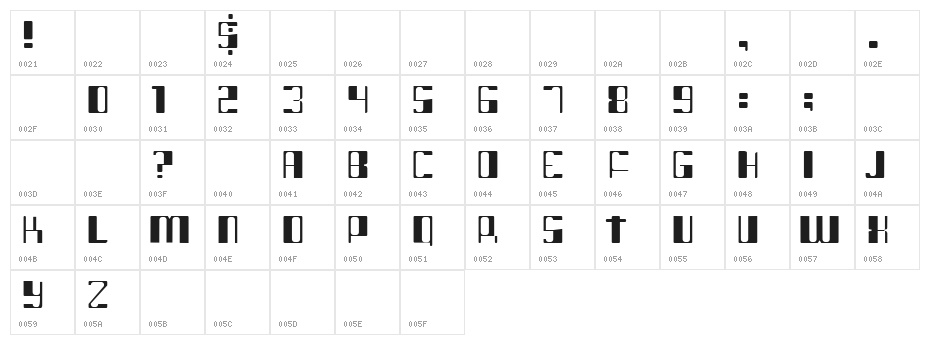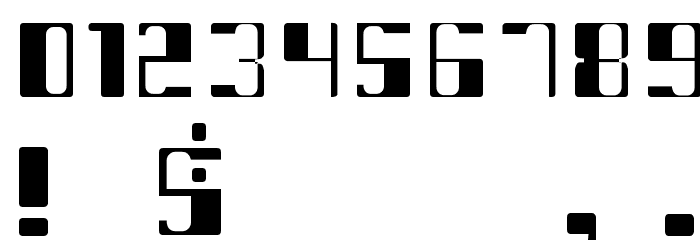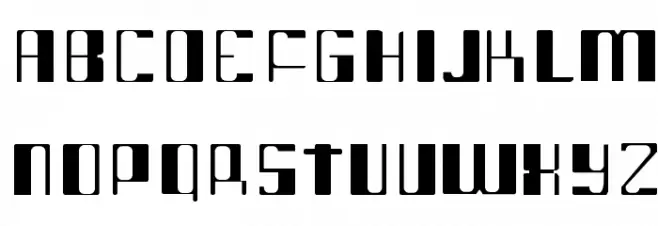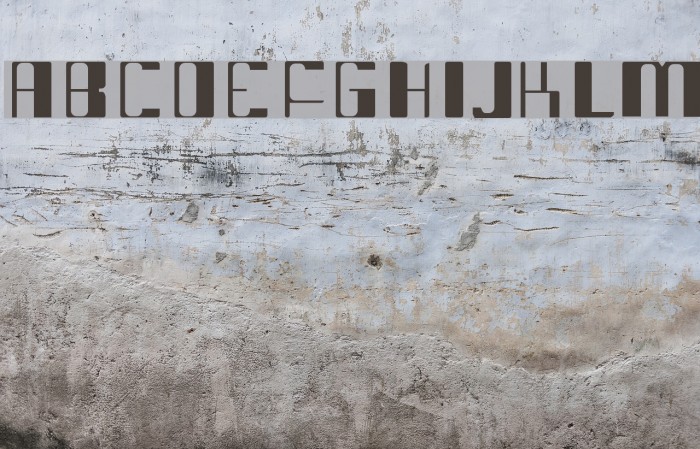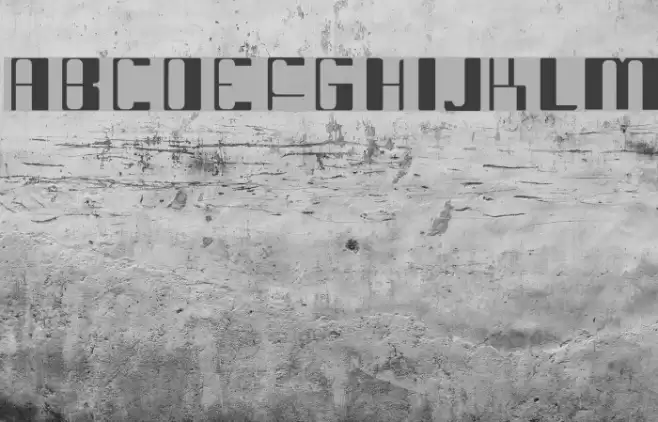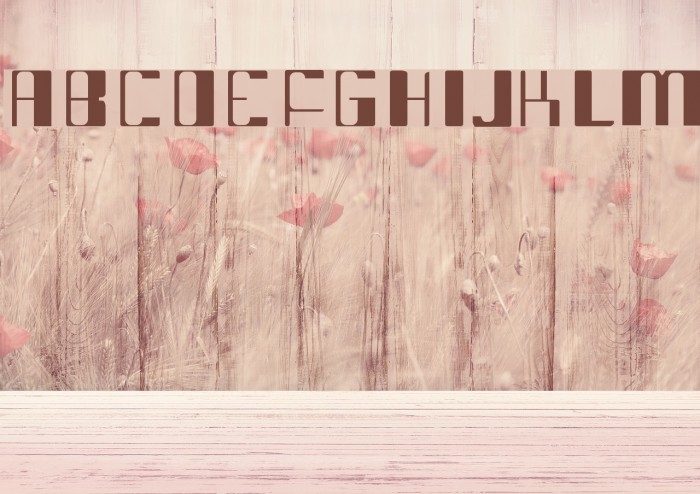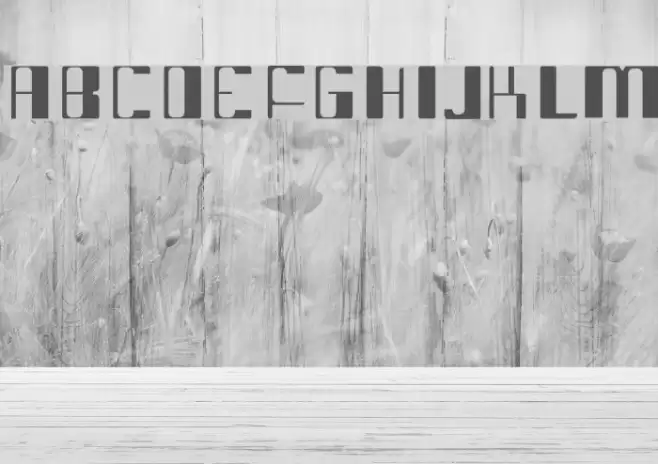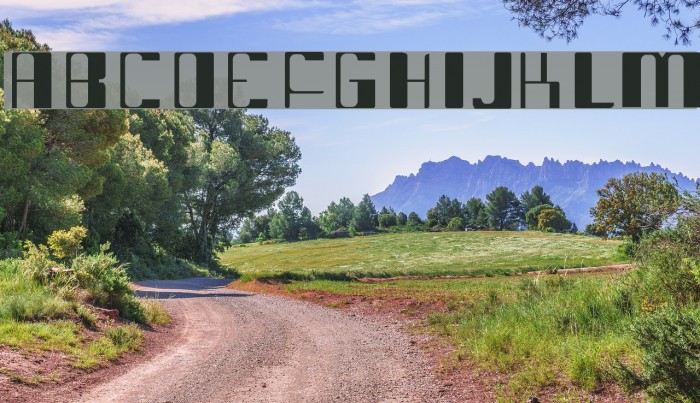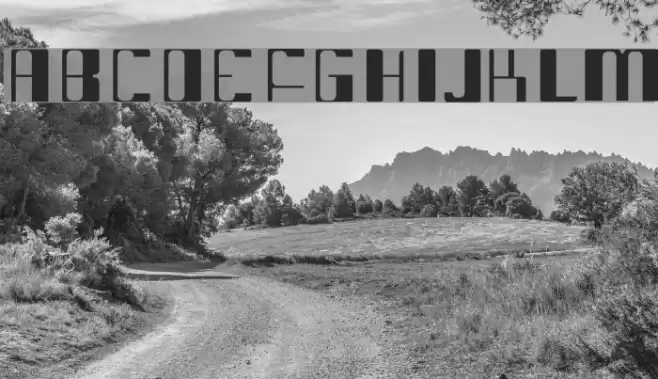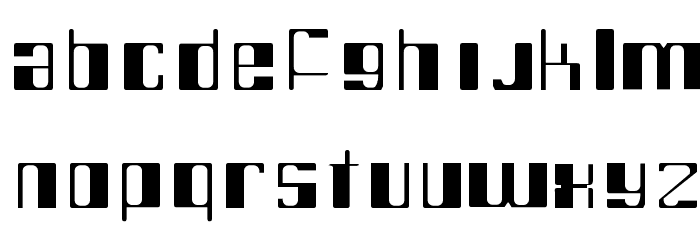
intergalatic Font
This font features a futuristic and geometric design, characterized by its bold and blocky letterforms. The uppercase and lowercase letters maintain a consistent height, creating a uniform appearance. The characters are constructed with a mix of solid and hollow sections, giving them a unique, modern look. The numerals follow the same design principles, ensuring cohesion across all glyphs. Special characters are stylized to match the overall aesthetic, making this font suitable for creative and tech-oriented projects.
| Proposed Projects | Ideal for sci-fi themed designs, tech branding, video game interfaces, and futuristic posters. |